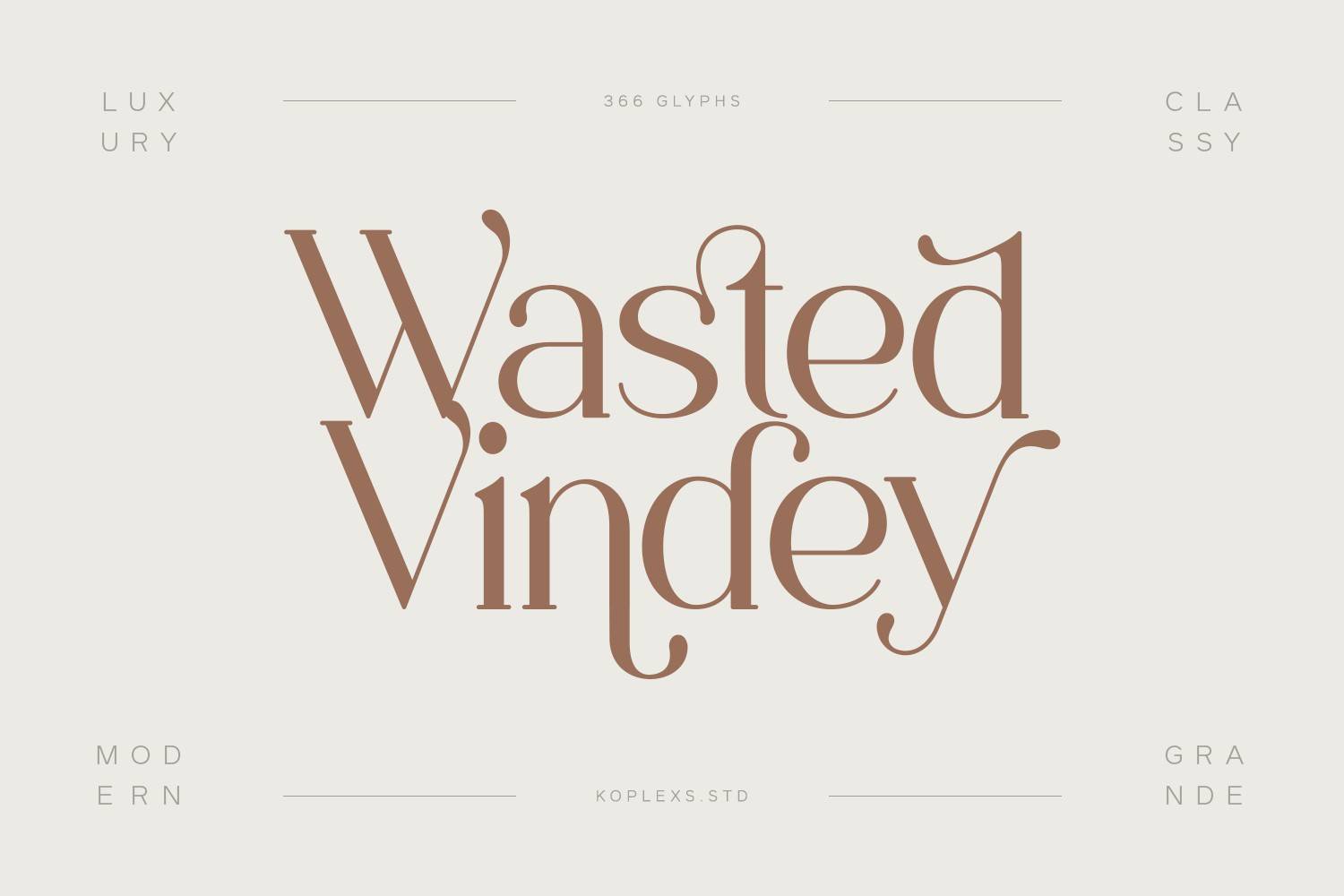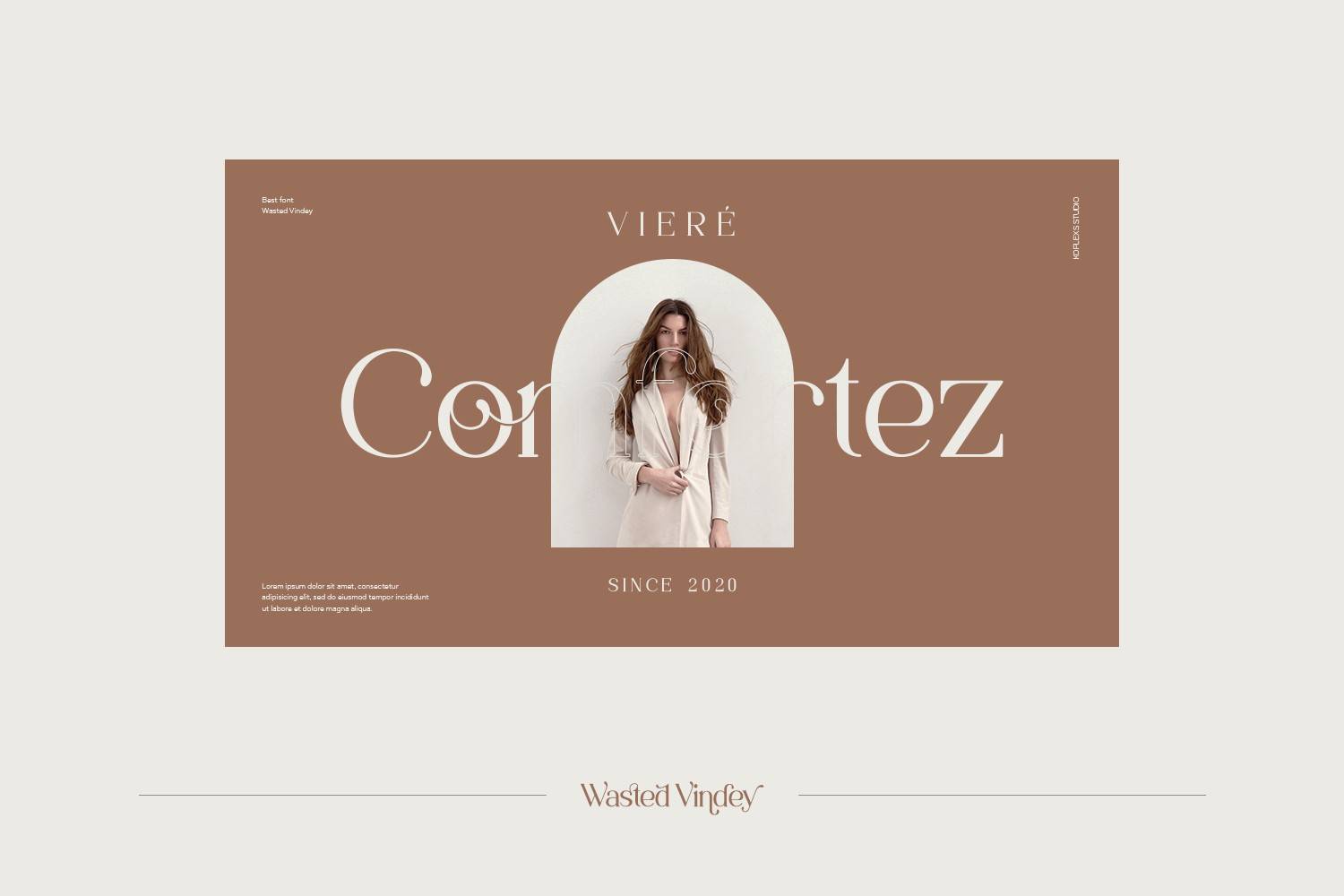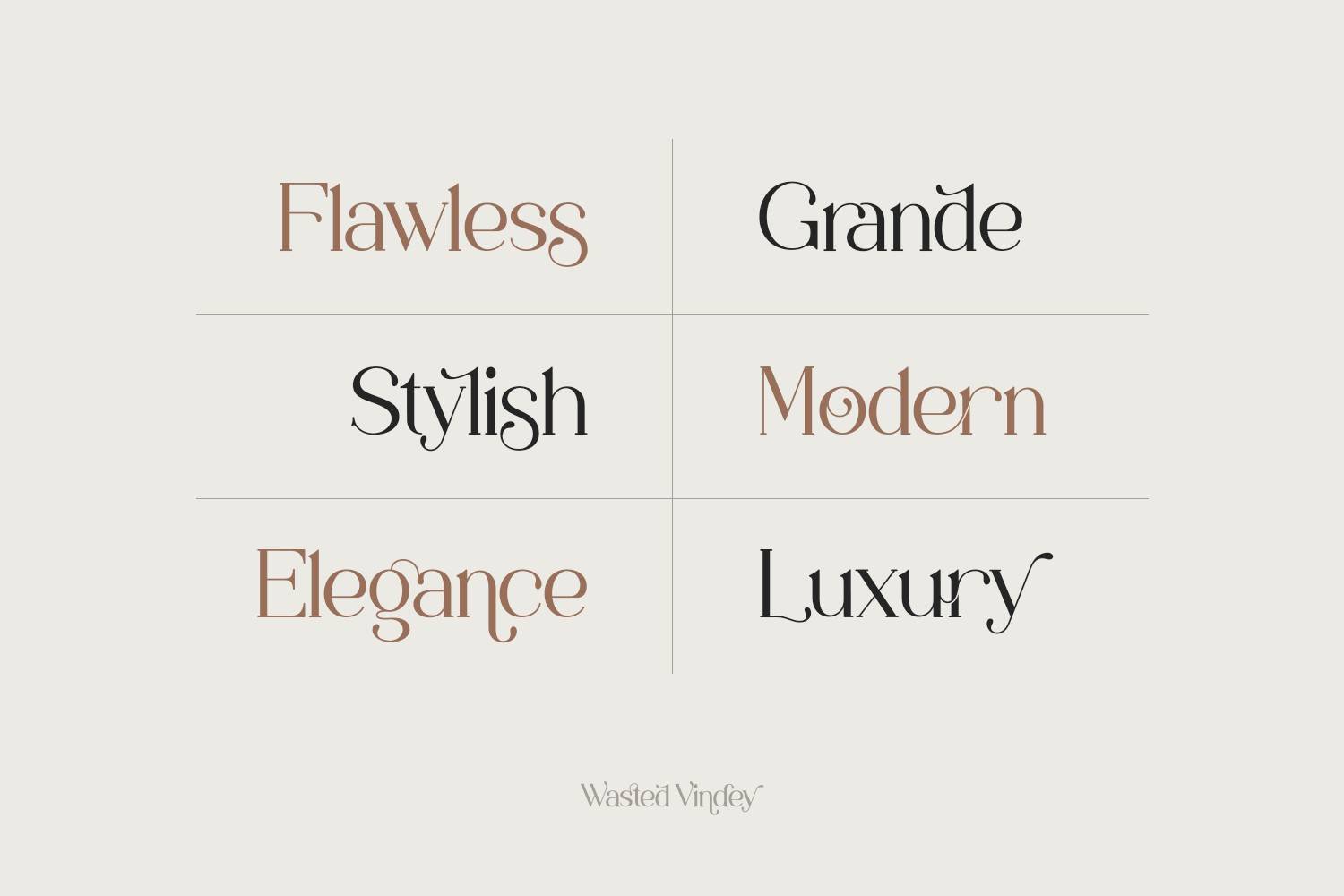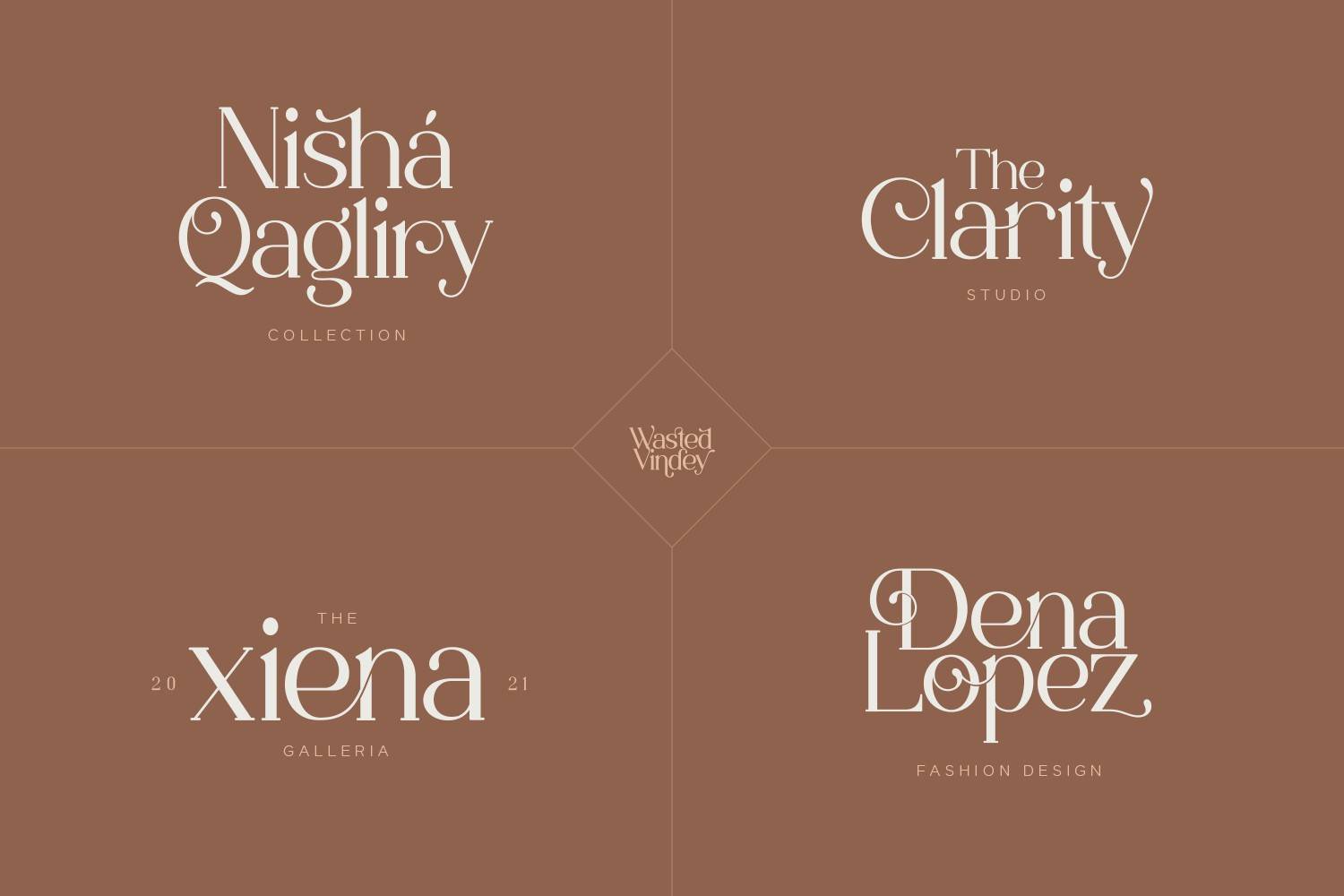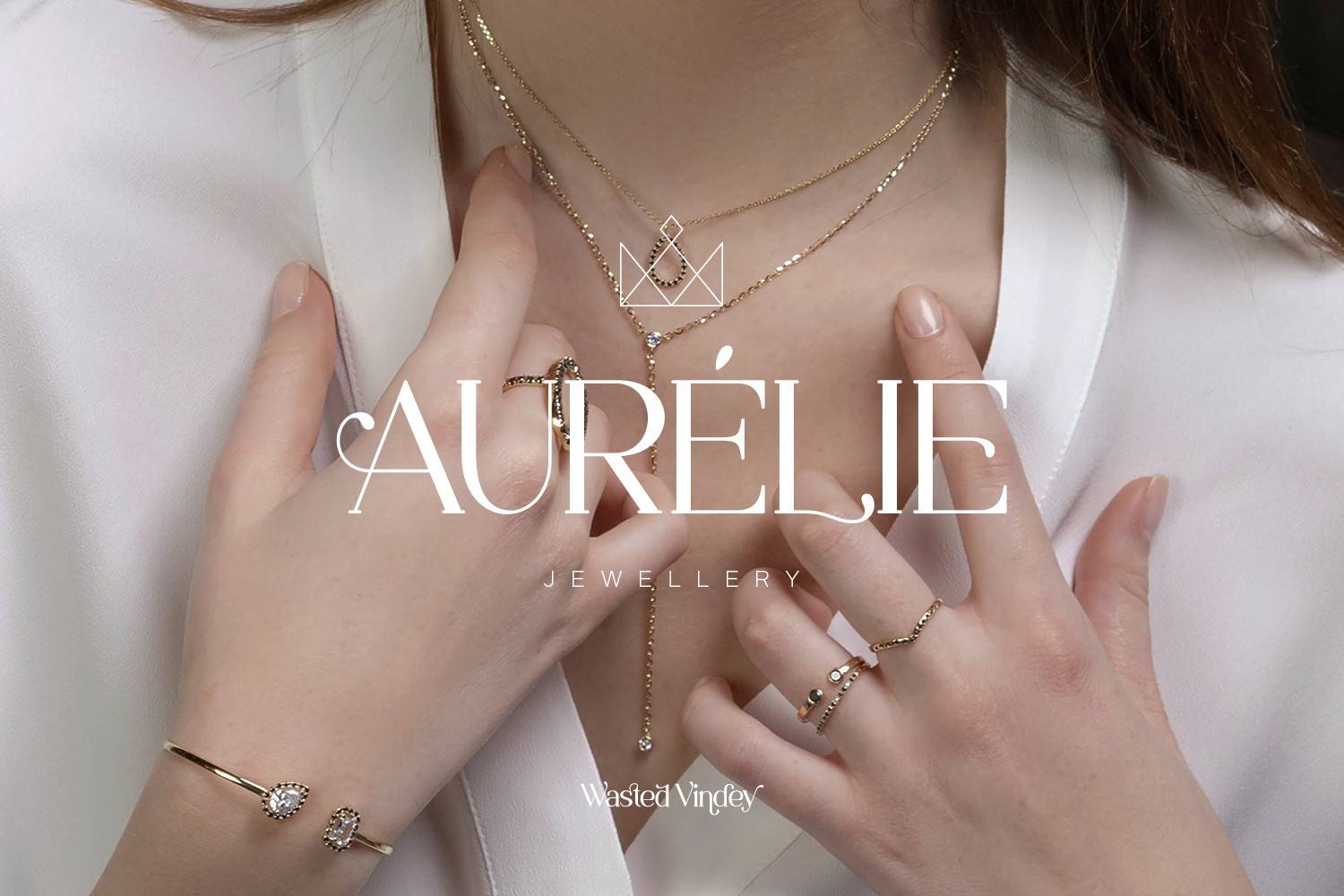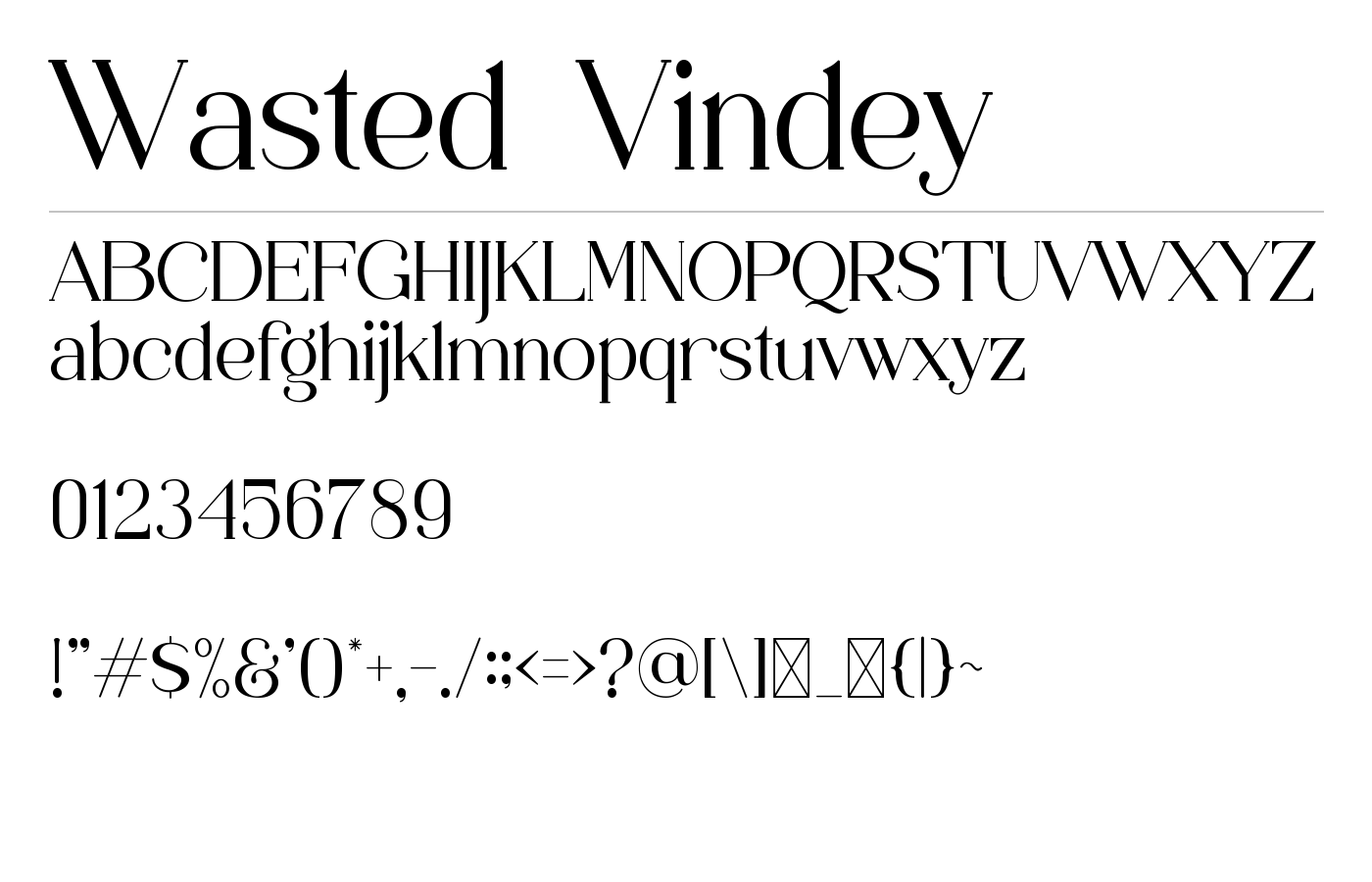
Wasted Vindey is an elegant serif font characterized by its high contrast between thick and thin strokes, slender proportions, and sharp, refined serifs. Its delicate and graceful letterforms evoke a sophisticated, classic feel, making it ideal for luxury branding, editorial design, and upscale invitations. This font works best in headlines or display settings where its stylish details can shine, adding a touch of timeless refinement.
Wasted Vindey Font
About Wasted Vindey Font
| Font family | Wasted Vindey Font |
| Designer | Ahmad Muslimin |
| Trademark | Wasted Vindey ™ Koplexs Studio |